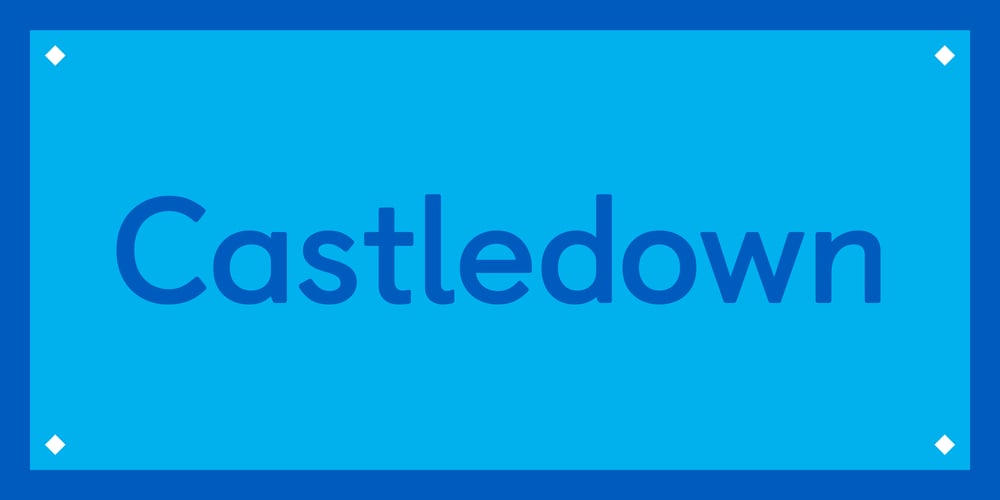
Castledown Font Family was designed by Colophon Foundry and published by Colophon Foundry. Castledown contains 6 styles and family package options. From 2012 — 2014 Colophon Foundry collaborated closely with Castledown Primary School in Hastings, UK. The project began as a commission for a custom typeface for the school but soon developed into an initiative to develop and unify typography within primary education.Castledown’s Headteacher, Mr. Small, was frustrated with the disparate fonts used by schools to teach children letterform recognition whilst learning reading and handwriting. By encapsulating all requirements into a common DNA to be used throughout the type family, we were able to build a typeface that had the key considerations of readability, differentiation of letters (such as the lowercase ‘l’ and uppercase ‘I’), and an understanding of how writing is taught in schools built into its genetic makeup.The type family’s accolades include a nomination for Design of the Year 2014 at the Design Museum and a Premier Award at the International Society of Typographic Designers in 2014.Castledown is available in three core-weights — Regular, Bold and Heavy — all with corresponding Italic and Fun variants. These Fun variants are more expressive and act as softer counterparts (and a more refined variant of Comic Sans). A stylistic dotted version of the Regular version is also available, as well as a script-variant in the form of the Cursive and three Instructional versions for writing practice.